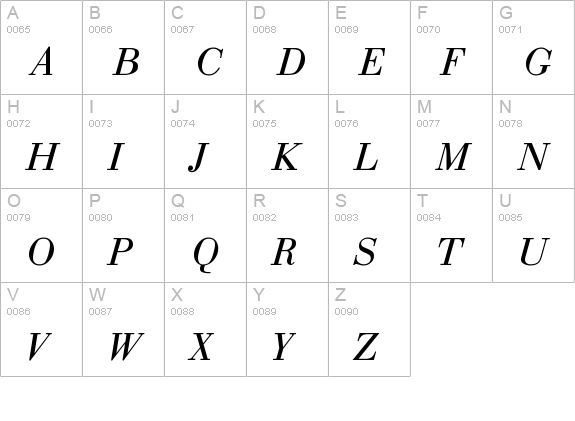
Rothni-Normal-Italic is the standard, neutral, italic variant in the Rothni typeface family \xE2\x80\x94 well suited to general body text, paragraphs, and standard typographic work.
The Rothni-Normal-Italic font is a sophisticated and elegant typeface that exudes a sense of modernity and style. Its sleek, slanted italics add a touch of flair to any design project, making it perfect for both professional and creative endeavors. The smooth curves and clean lines of Rothni-Normal-Italic lend a sense of refinement and class to any text, enhancing readability and visual appeal. Best of all, Rothni-Normal-Italic is available for free download at FontsMarket.com, making it accessible to all designers and enthusiasts looking to elevate their typography game without breaking the bank. Don't miss out on this versatile and stylish font that will surely make a statement in your next project. Download Rothni-Normal-Italic today and add a touch of sophistication to your designs!